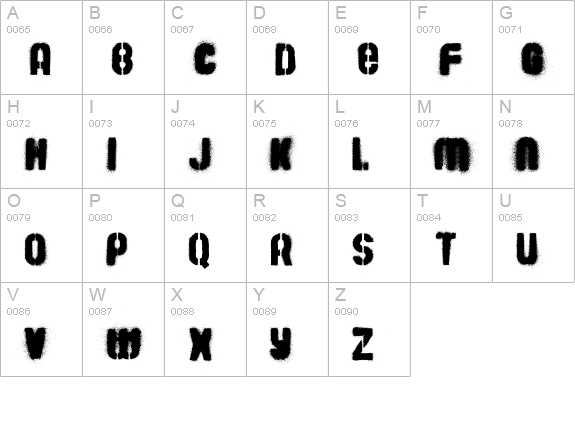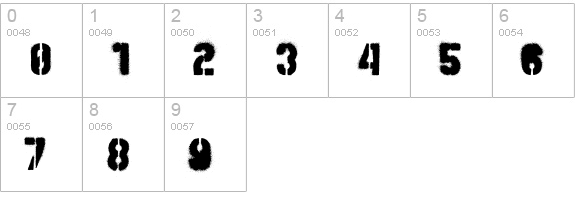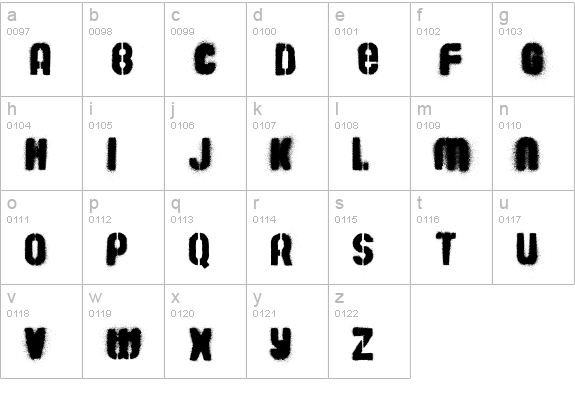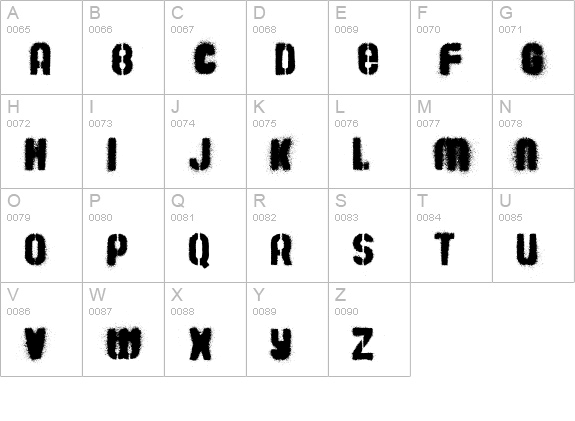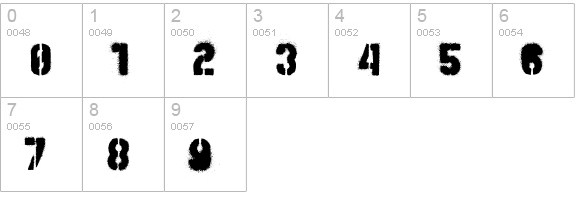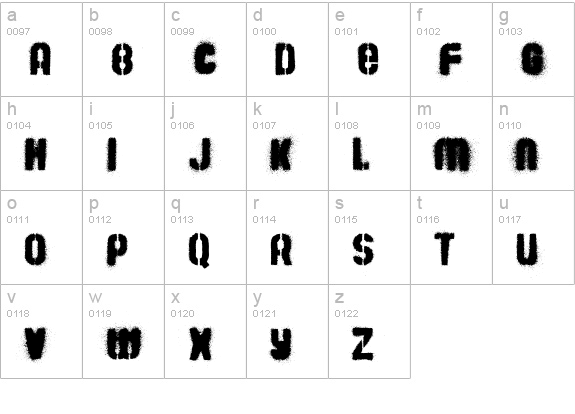
Barrio 30 Font Details
Barrio 30 font is a stylish and modern typeface that exudes a unique blend of elegance and playfulness. With its bold letterforms and subtle curves, this font is perfect for adding a touch of sophistication to any design project. Whether you're creating invitations, posters, logos, or social media graphics, Barrio 30 font will make your text stand out. The best part? Barrio 30 font is completely free to download at FontsMarket.com. You can effortlessly elevate your designs without breaking the bank. Don't miss out on this versatile and eye-catching font that will surely leave a lasting impression on your audience. Download Barrio 30 font today and let your creativity shine!